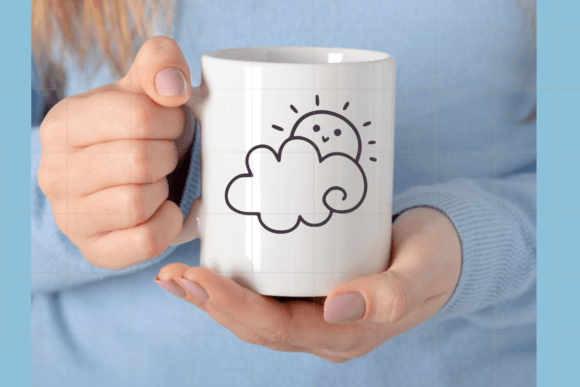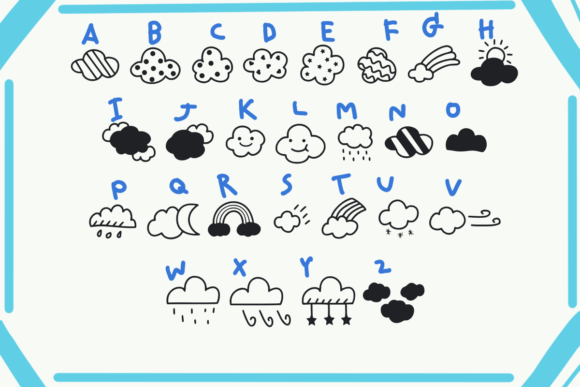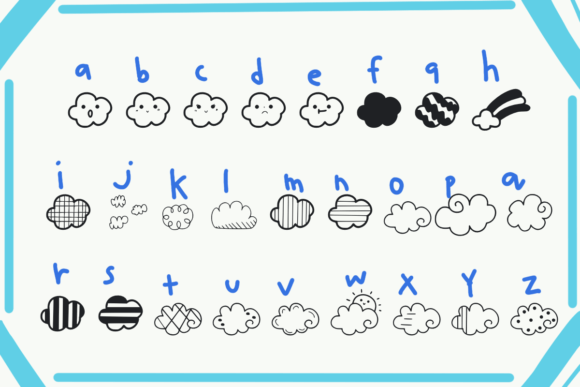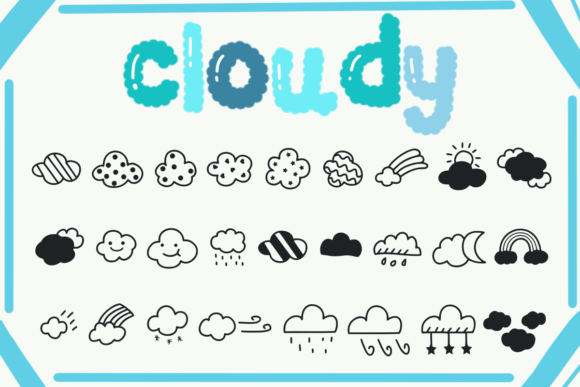
Discover the Charm of Cloudy Font: A Hand-Drawn Dingbats Delight
Are you a designer, crafter, or digital artist looking for a unique and versatile font to elevate your creative projects? Look no further than Cloudy Font, a delightful hand-drawn dingbats font that’s perfect for a wide range of applications. In this article, we’ll explore the features and benefits of Cloudy Font, and show you how it can add a touch of whimsy and charm to your designs.
What is Cloudy Font?
Cloudy Font is a carefully crafted hand-drawn dingbats font that’s designed to bring a smile to your face. With its playful and airy feel, this font is ideal for adding a touch of personality to your designs. Whether you’re working on plans, crafting, digital design, presentations, greeting card making, or any other creative project, Cloudy Font is the perfect companion.
Key Features of Cloudy Font
- Hand-drawn with love: Each character in Cloudy Font has been meticulously hand-drawn with attention to detail, giving it a unique and personal touch.
- Cute and playful: Cloudy Font features adorable cloud-inspired characters that are sure to bring a touch of whimsy to your designs.
- Versatile: With its wide range of characters, Cloudy Font can be used for a variety of projects, from digital design to crafting and paper crafting.
Uses for Cloudy Font
Cloudy Font is an incredibly versatile font that can be used in a wide range of creative projects. Here are just a few ideas to get you started:
- Plans and organization: Use Cloudy Font to add a touch of personality to your planners, journals, and organizers.
- Crafting and paper crafting: Cloudy Font is perfect for adding embellishments and decorations to your craft projects, such as cards, scrapbook pages, and gift tags.
- Digital design: Use Cloudy Font to create eye-catching social media graphics, blog posts, and website elements.
- Presentations: Add a touch of whimsy to your presentations with Cloudy Font, making them more engaging and fun.
- Greeting card making: Create one-of-a-kind greeting cards with Cloudy Font, perfect for special occasions and celebrations.
Benefits of Using Cloudy Font
By incorporating Cloudy Font into your designs, you’ll enjoy a range of benefits, including:
- Unique and eye-catching designs: Cloudy Font’s playful characters will help your designs stand out from the crowd.
- Time-saving: With Cloudy Font’s wide range of characters, you’ll have everything you need to create beautiful designs in one place.
- Increased creativity: Cloudy Font’s whimsical feel will inspire your creativity and help you think outside the box.